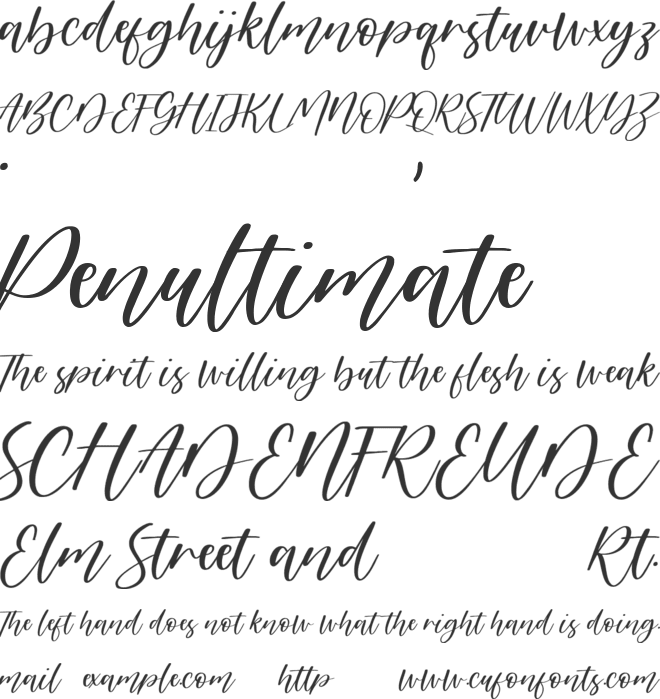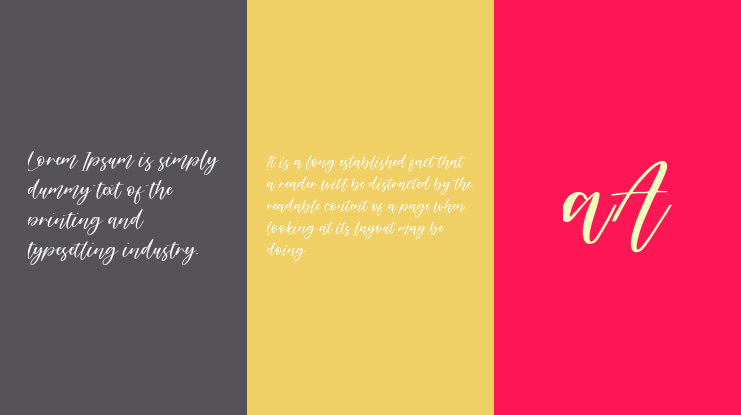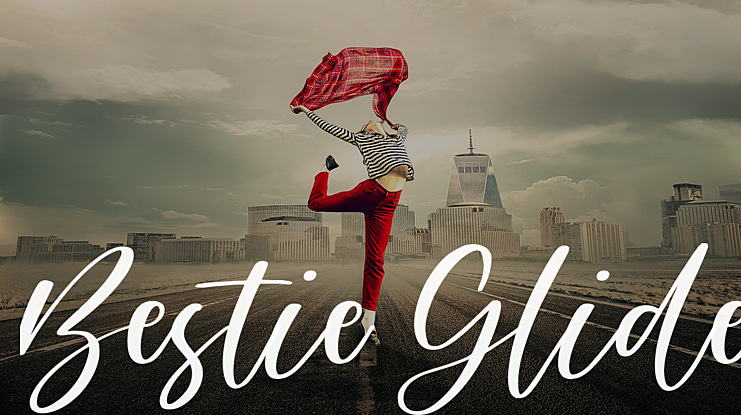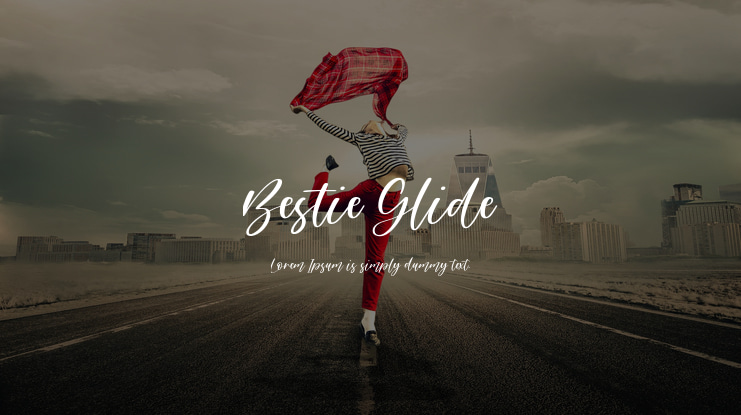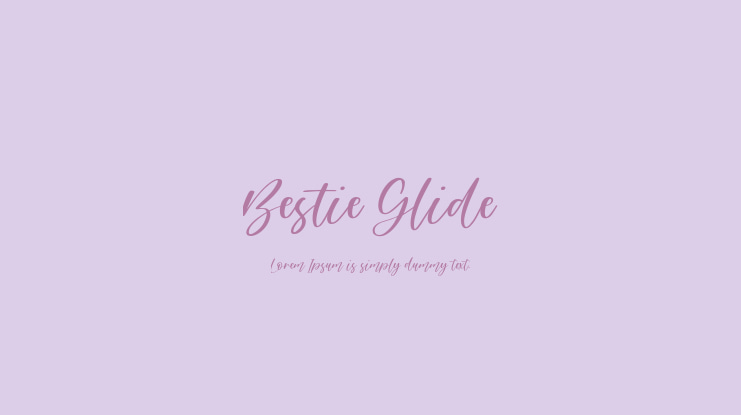
Bestie Glide Font
Bestie Glide Script Font is a delicate, elegant and flowing handwritten font. It has beautiful and well balanced characters and as a result, it matches a wide pool of designs. Add it to your most creative ideas and notice how it makes them come alive!
– Uppercase, Lowercase, Numeral & Punctuation
– Alternate Letters, Ligature & Swash/Tail